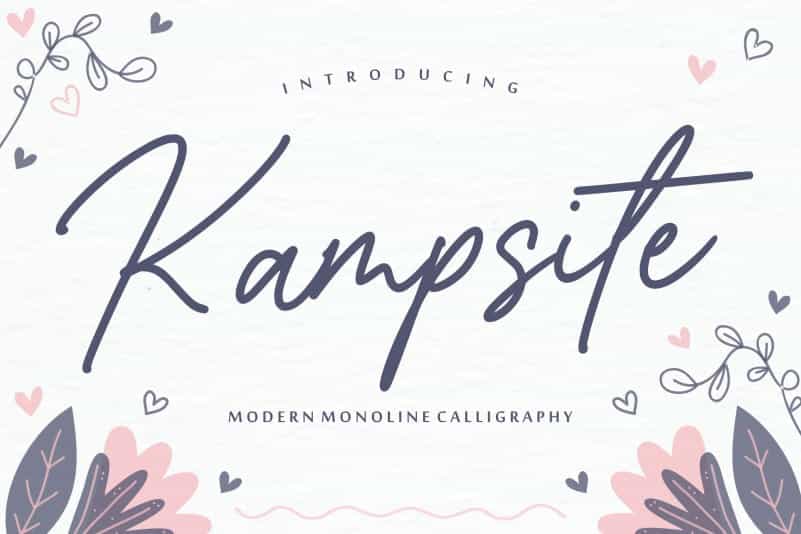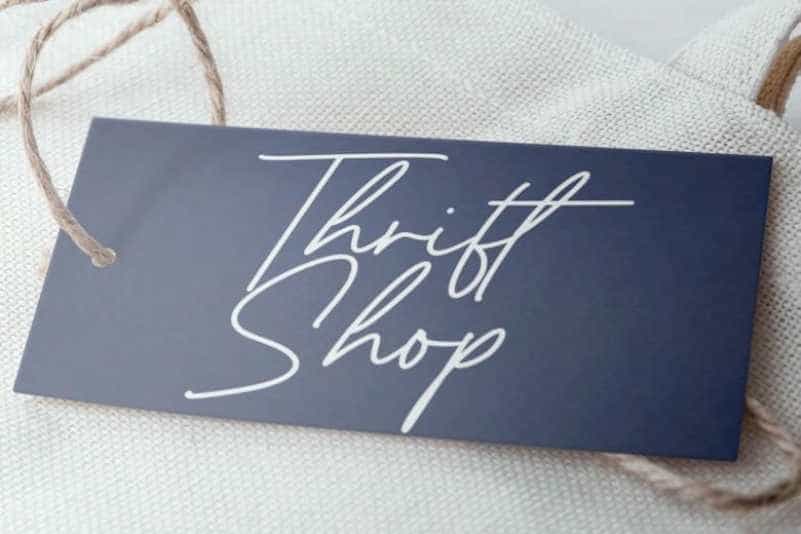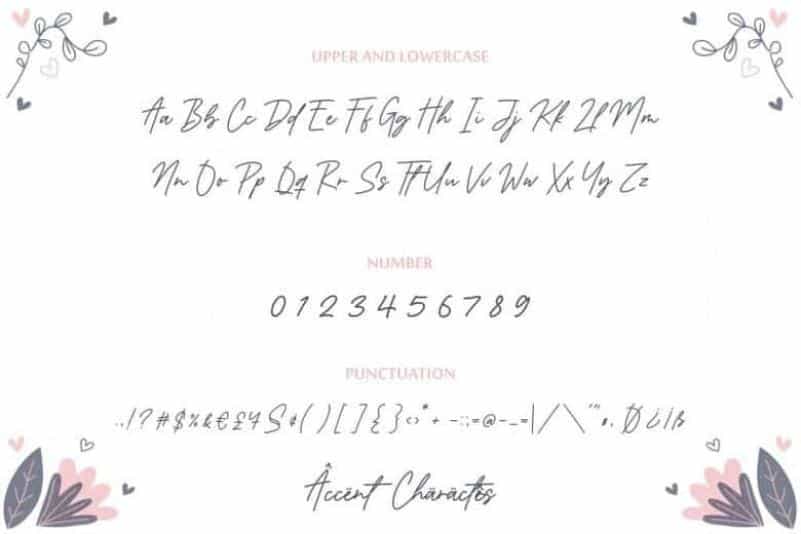
Discover Kampsite Monoline Script Font, part of the Handwritten Script Monoline collection—a versatile and unique font perfect for adding a personal touch to your projects. Download it for free and enjoy crafting designs with style, from invitations to social media posts. This font is available exclusively for personal use, giving you the freedom to create without limits. Unlock your creativity with Kampsite Monoline Script Font today!
Kampsite is a contemporary handwritten monoline font. Kampsite is great for packaging products, branding projects, magazines wedding, social media or to simply convey words over the background. The font comes with TTF, Kampsite also multilingual support.